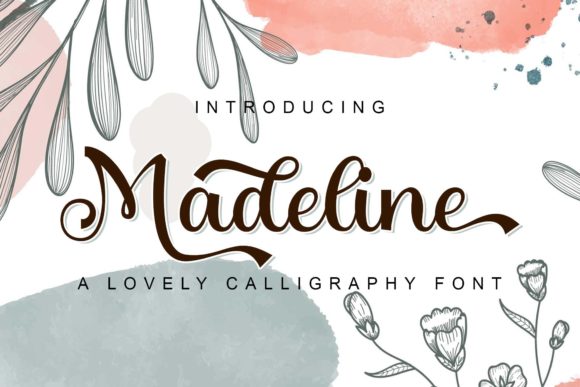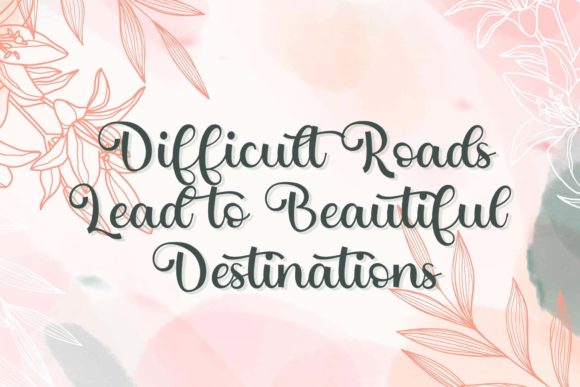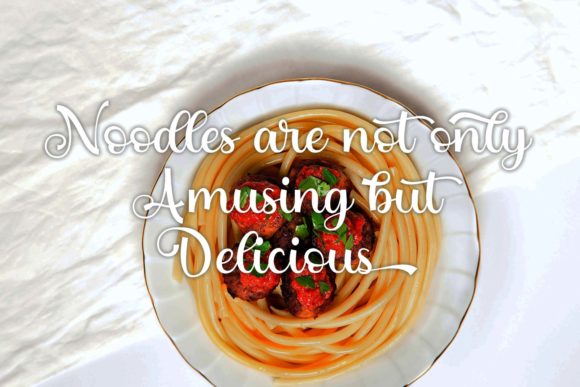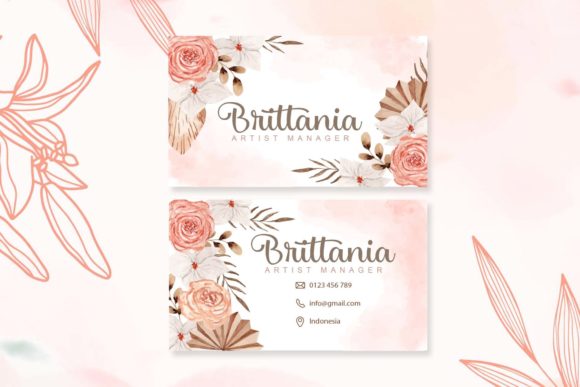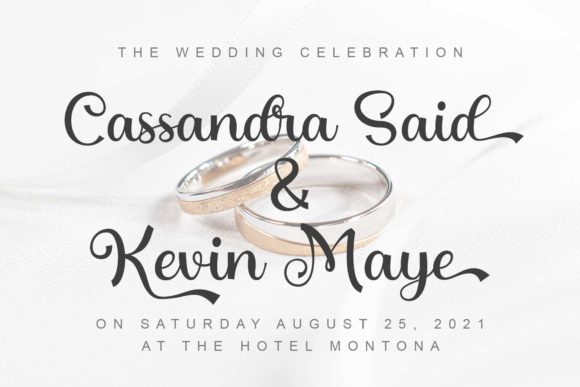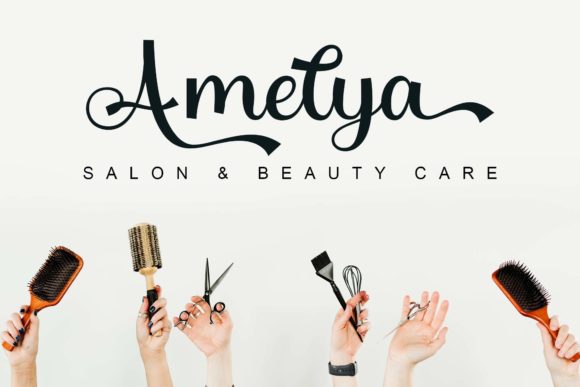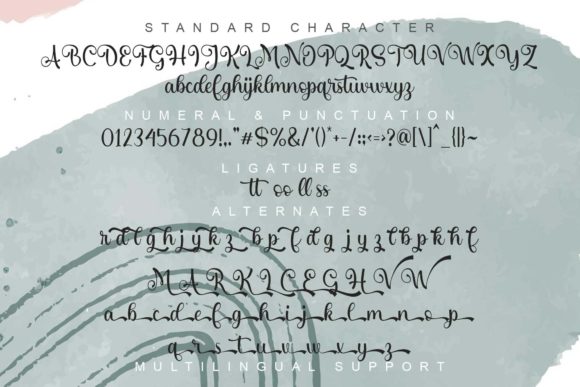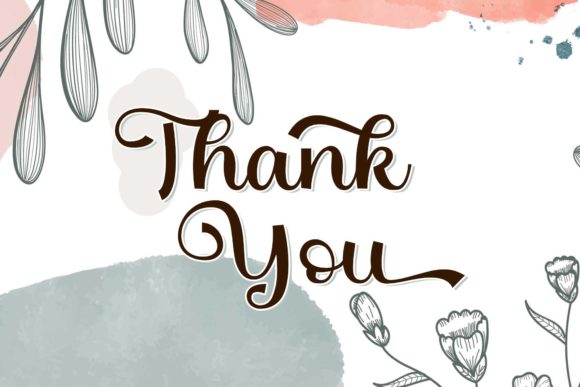
Madeline Font
About Madeline Font
Madeline is a lovely script font featuring charming, playful characters that seem to dance along the baseline. This font is PUA encoded which means you can access all of the glyphs and swashes with ease!